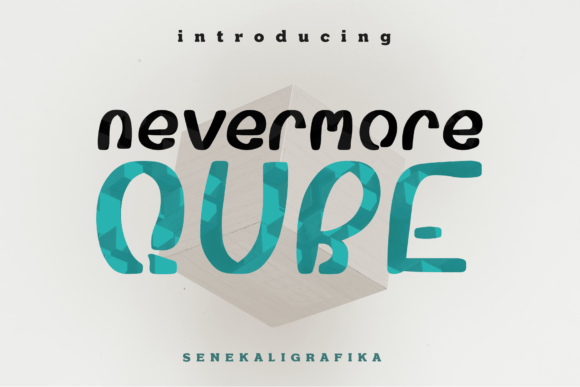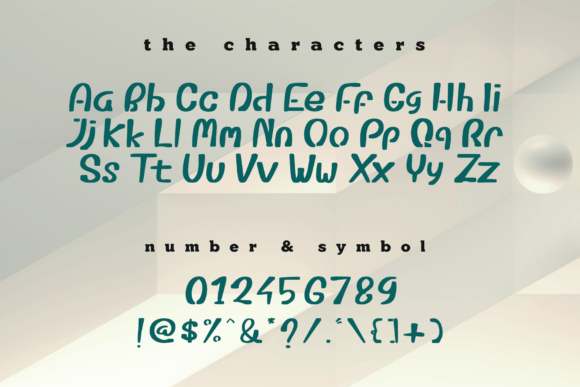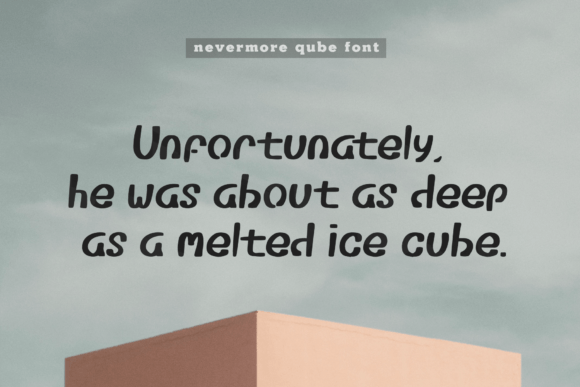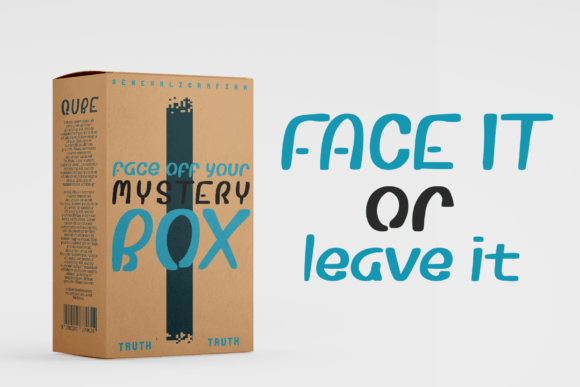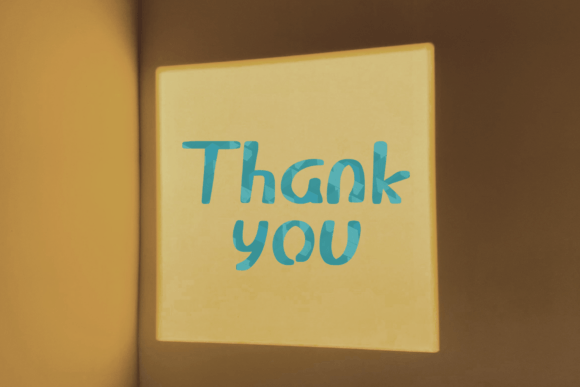
About Nevermore Qube Font
“NEVERMORE QUBE” is introduced as a font with hard strokes and a signature style that instantly communicates a unique sensation. This font is positioned as a tool to elevate your creative projects to the highest level, offering a distinct and impactful typographical design.
The mention of hard strokes suggests a bold and impactful visual quality in the font. Fonts with hard strokes often convey a sense of strength and authority, making them suitable for designs where you want to make a bold statement.
The term “signature style” implies that “NEVERMORE QUBE” has a unique and recognizable aesthetic, allowing it to stand out and leave a lasting impression. Fonts with a signature style often contribute to the overall brand identity and personality of a design.
The versatility of “NEVERMORE QUBE” is highlighted by its applicability to a wide range of projects. Whether it’s for everyday use or significant occasions like the happiest day in your life, the font is presented as a valuable tool for crafting various typographical designs. It is suggested for use in greeting cards, headings, flyers, product packaging, book covers, printed quotes, logos, and more.
Describing it as a universal and modern font implies that “NEVERMORE QUBE” is designed to adapt to different design trends and contexts. This universality makes it a versatile choice for designers looking for a font that can be applied across a spectrum of projects.
In summary, “NEVERMORE QUBE” is positioned as a font that brings a unique sensation with its hard strokes and signature style. It is presented as a valuable asset for creating special and touching typographical designs, making it suitable for a wide array of projects, from everyday designs to special occasions, and offering endless possibilities for creative expression.